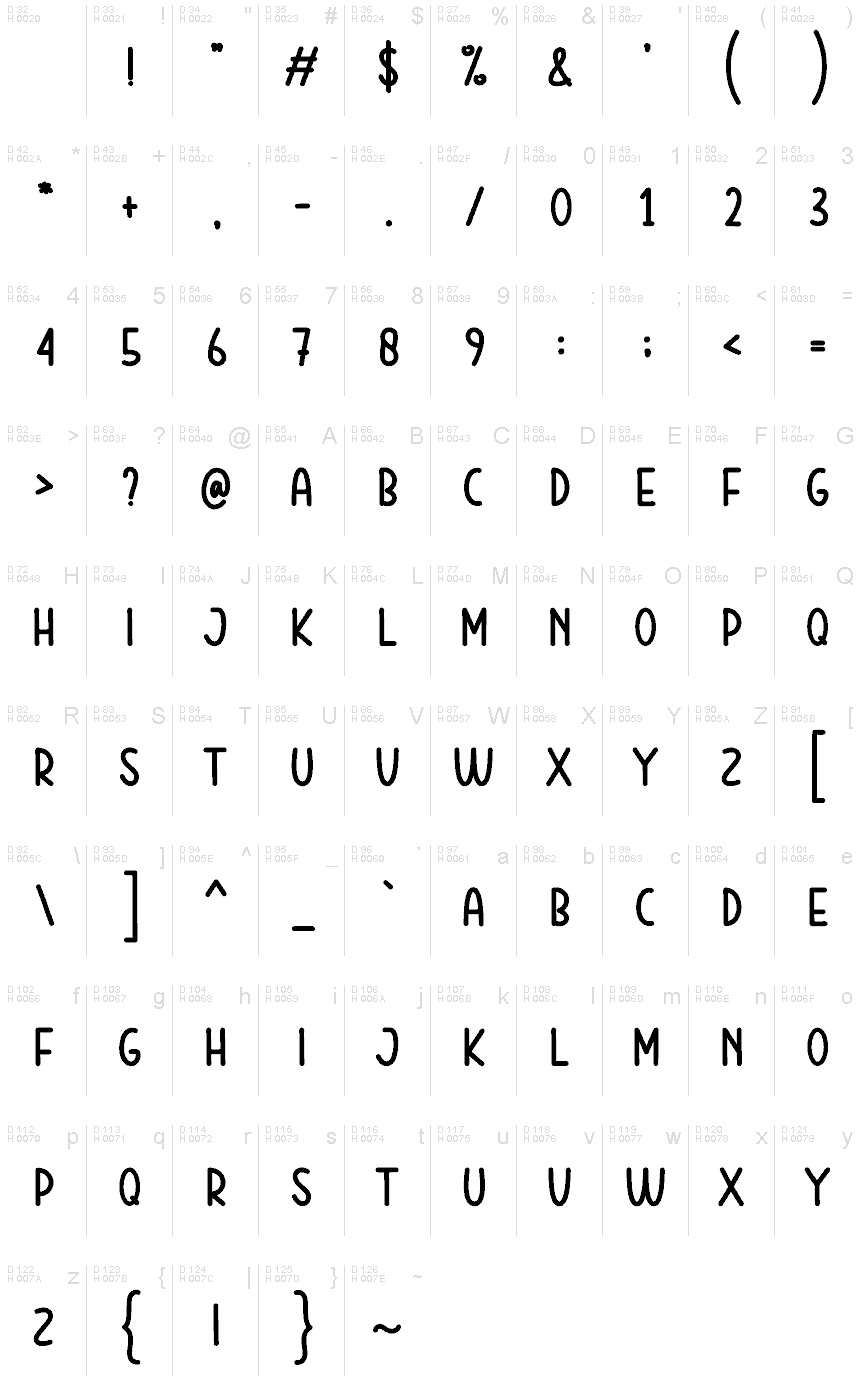
Creative Outside
Creative Outside font designed by Andi Moz is a condensed handwritten font with a hand-drawn appearance. It combines modern vibes with casual aesthetics for an approachable feel enhanced by unique character shapes. This artistic flair and the versatile style make it fully capable of shining through on its own or complementing creative artwork.
This free handwritten font has exceptional potential in all sorts of branding designs, invitations, posters, greeting cards, social media banners, typography posters or vintage projects. Its seamless integration is guaranteed also within packaging design, professional documents like resumes and portfolios as well as advertising projects.